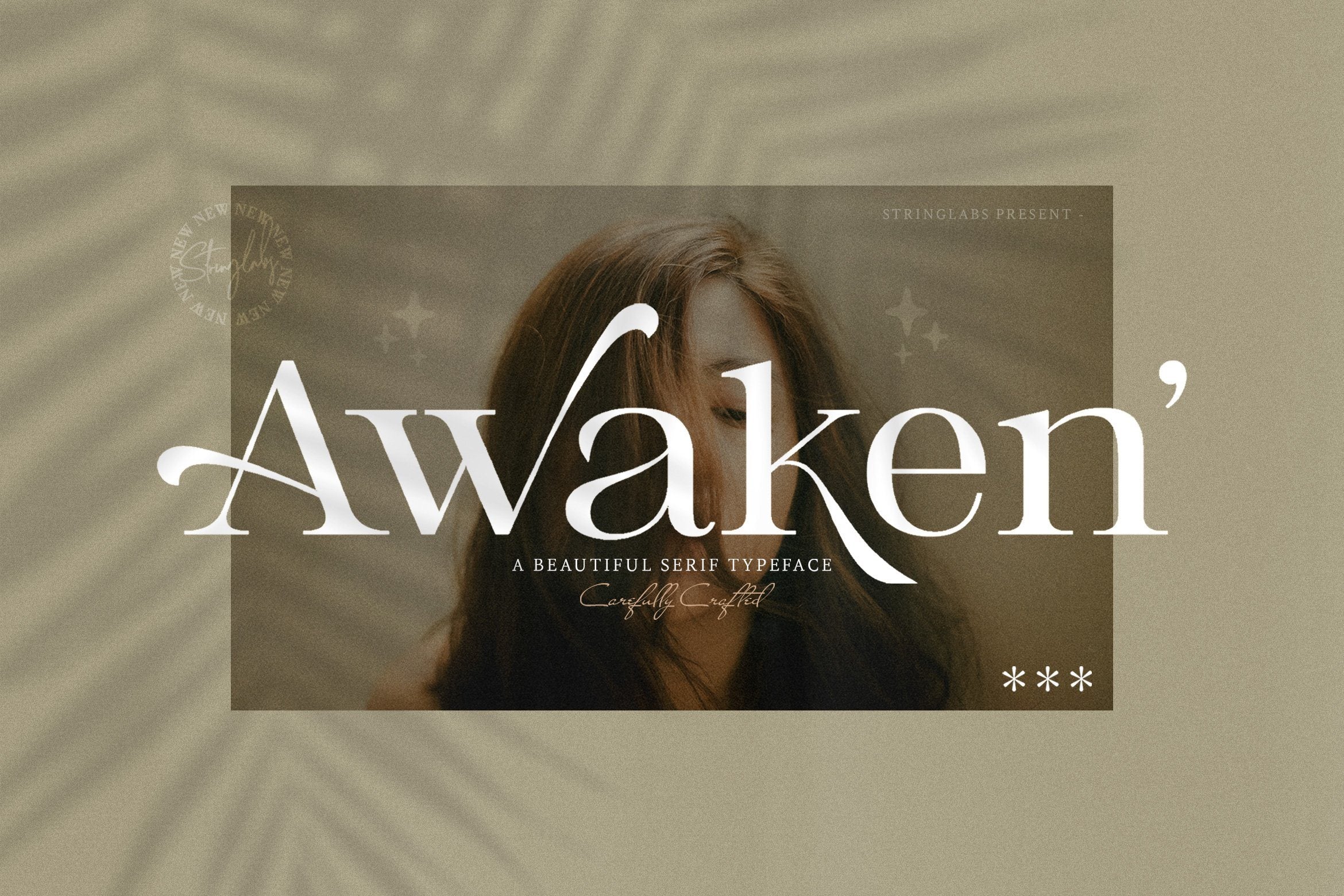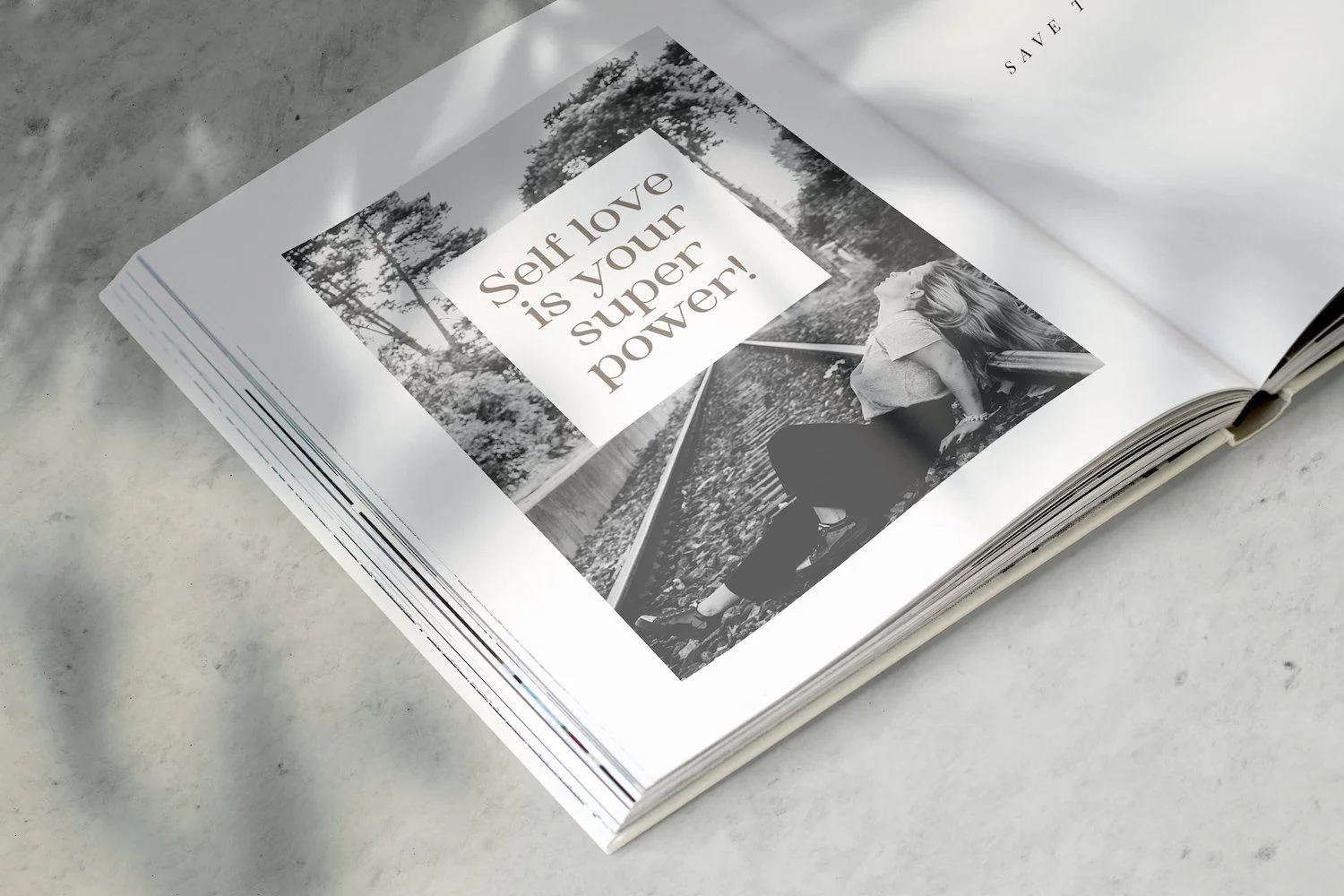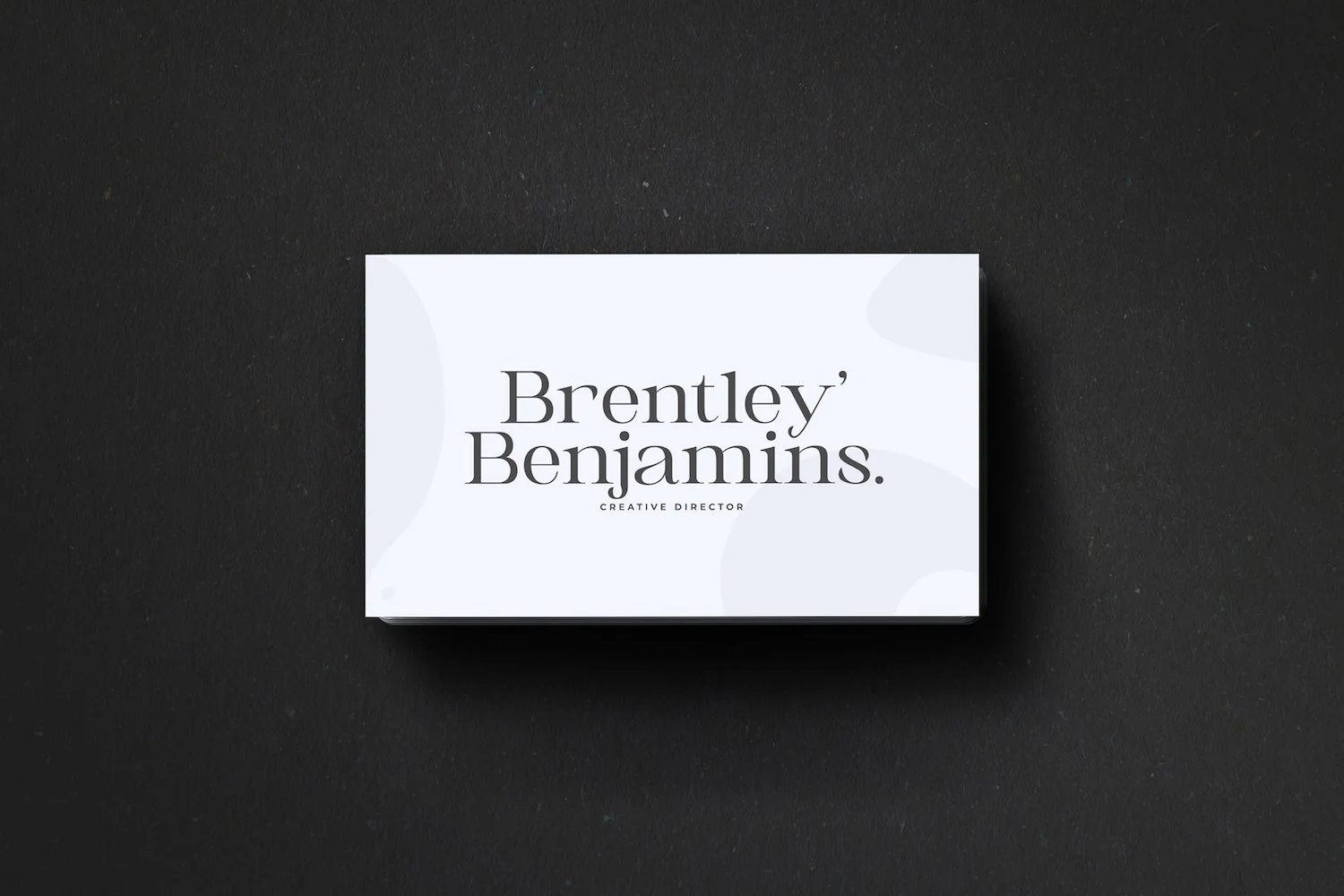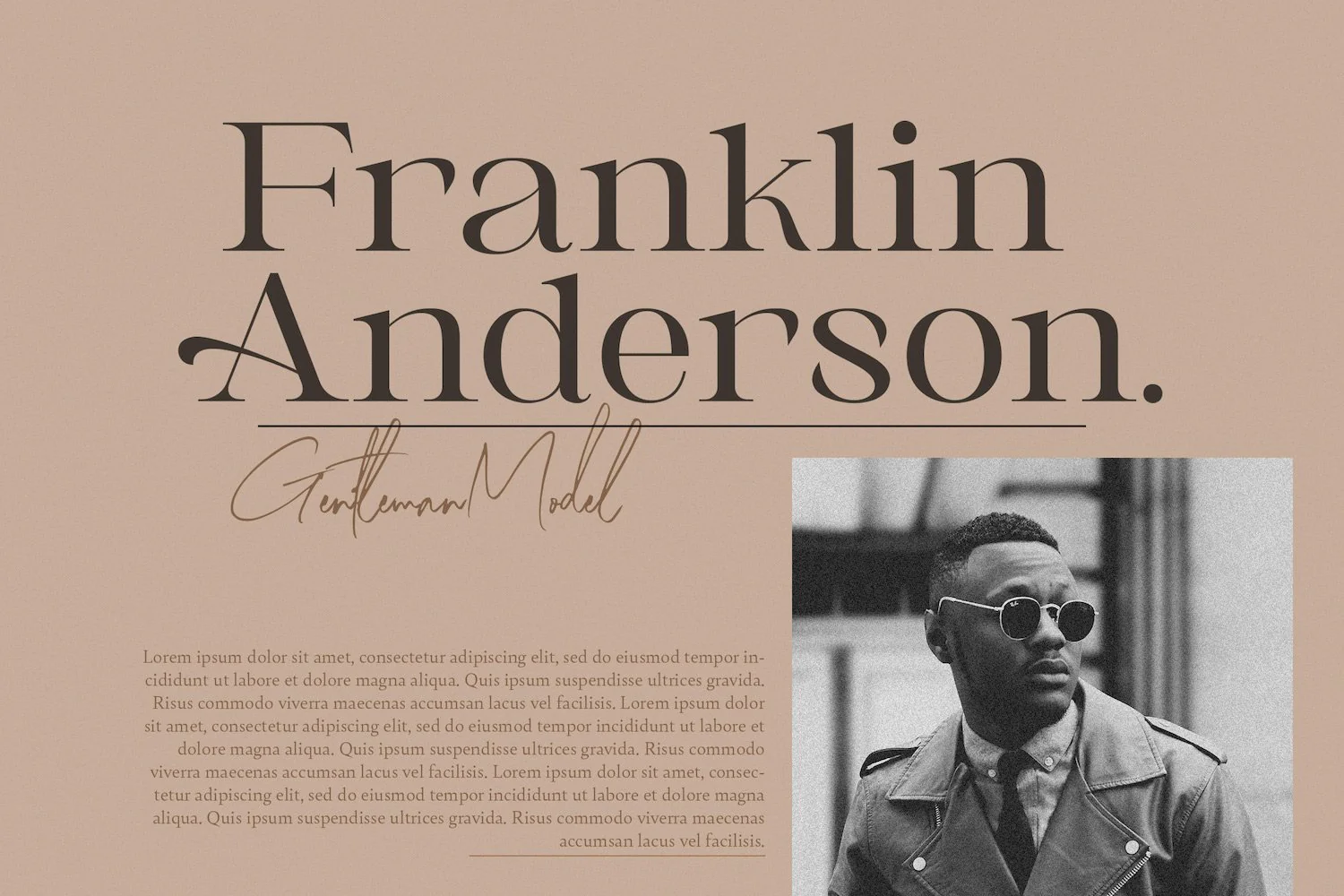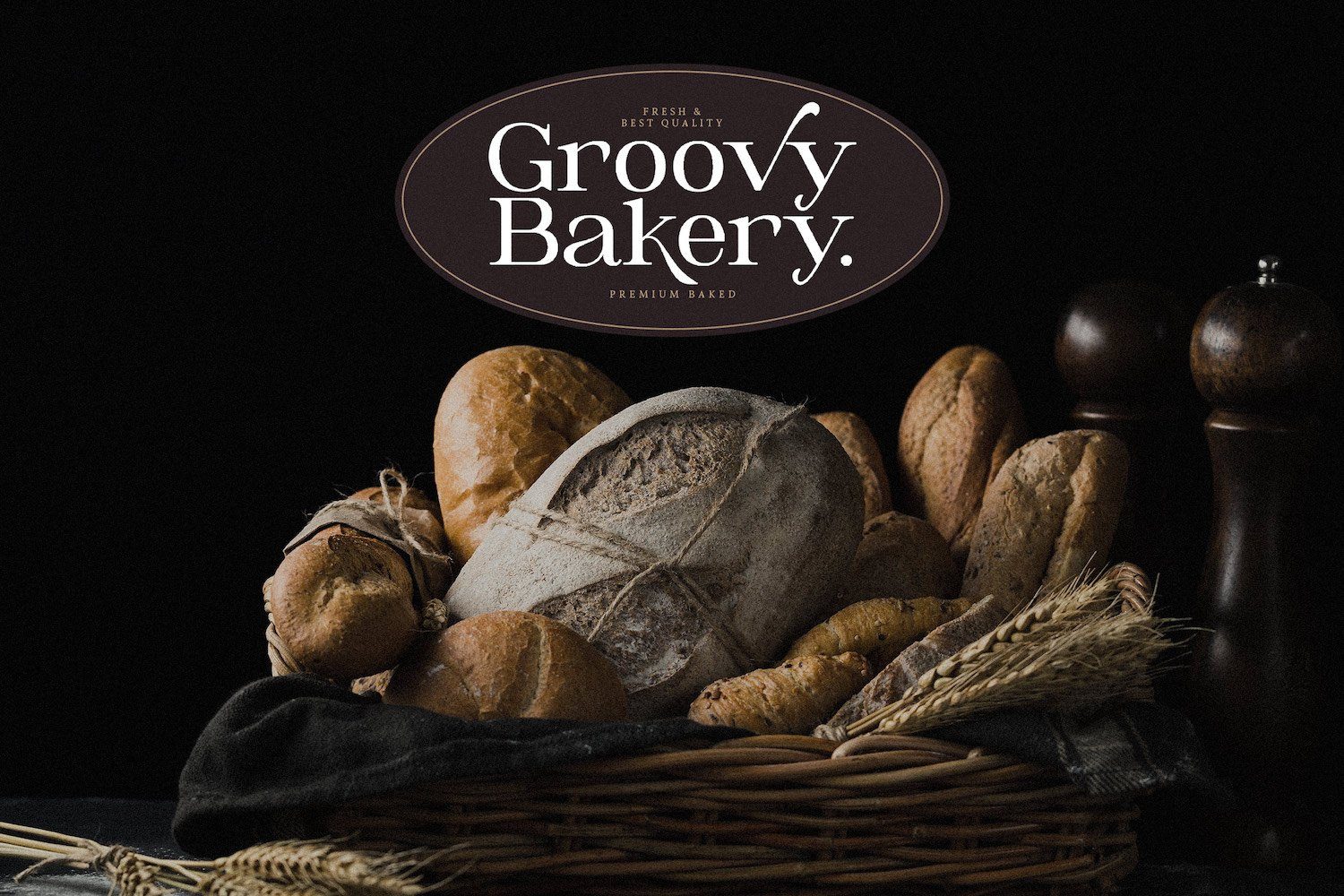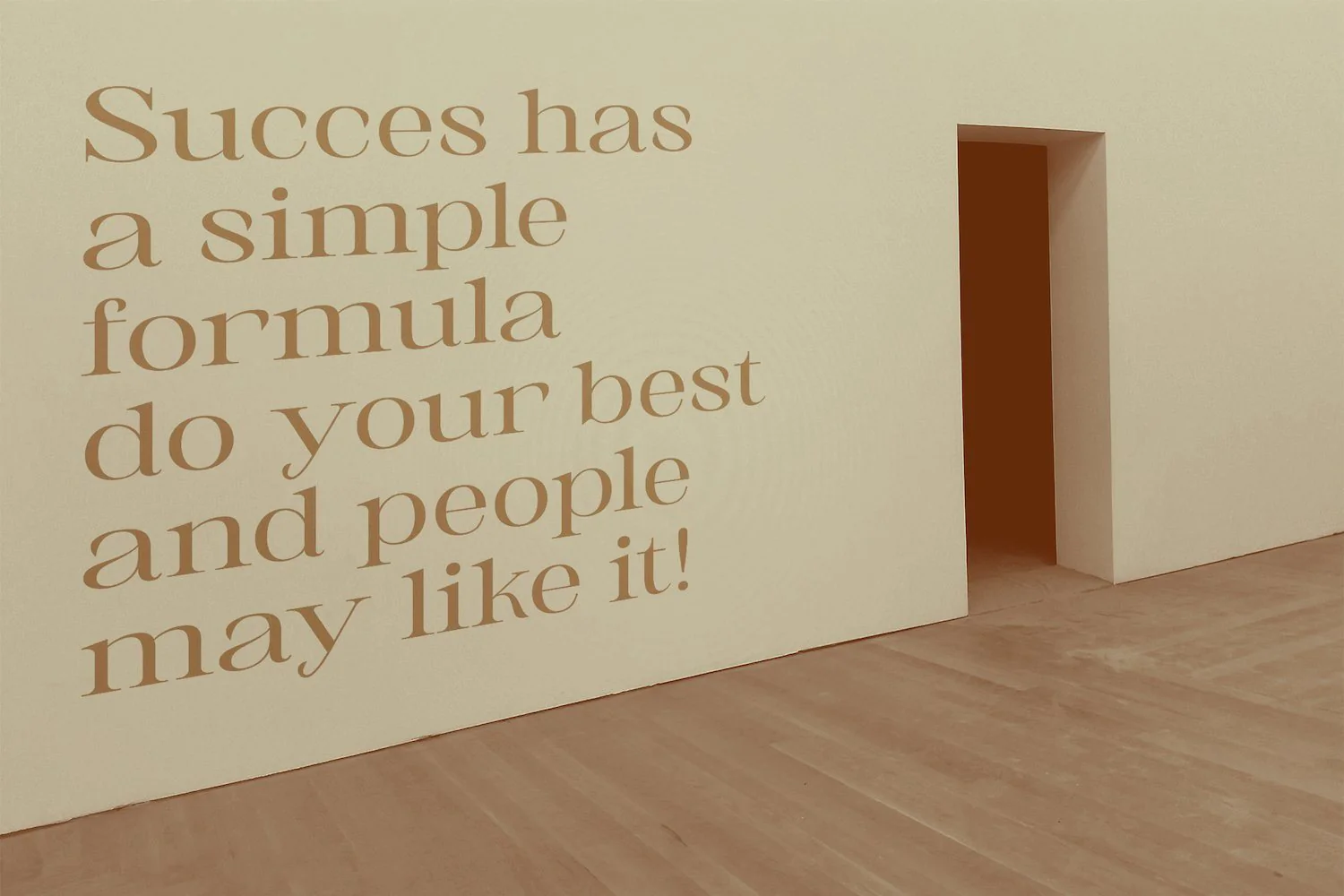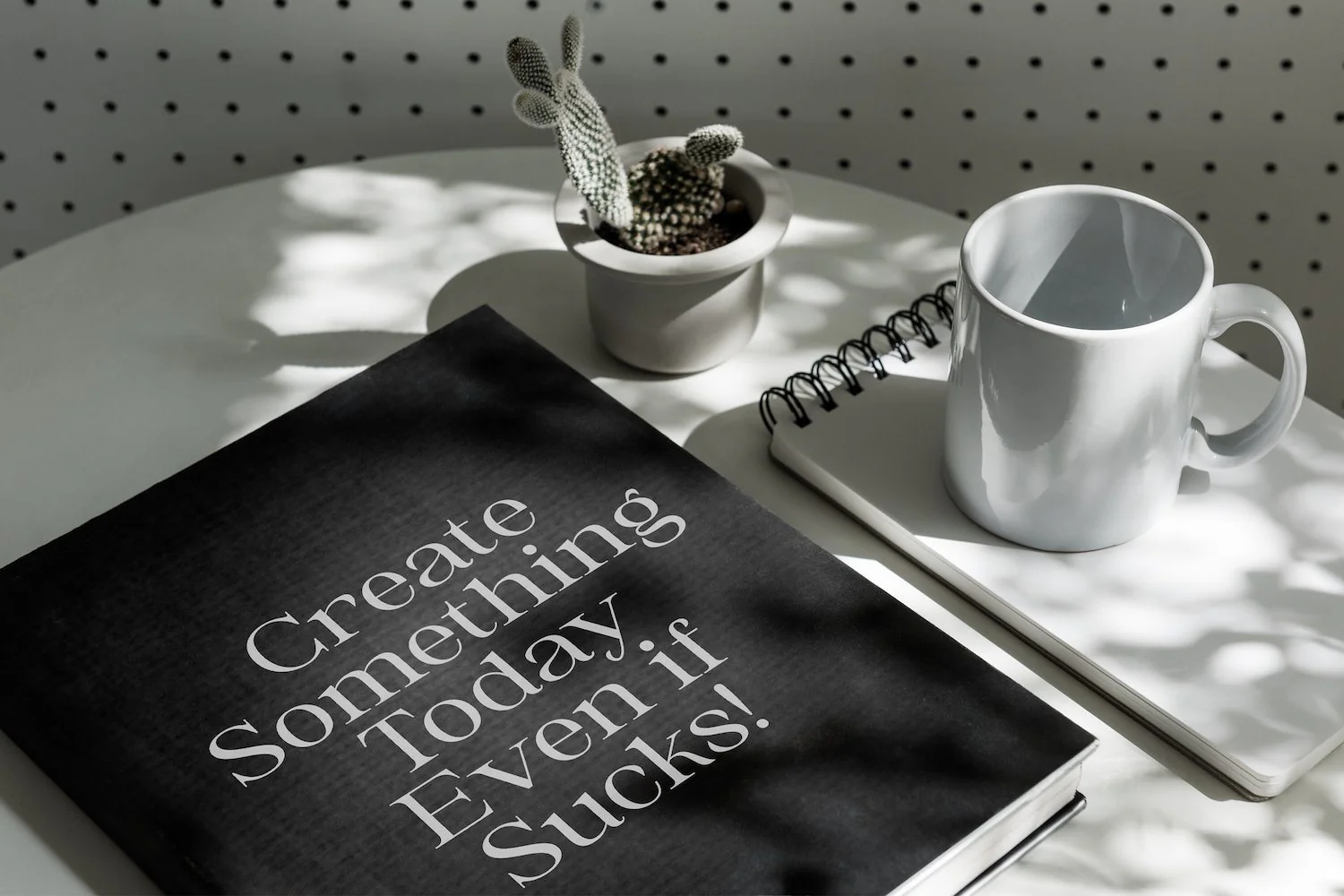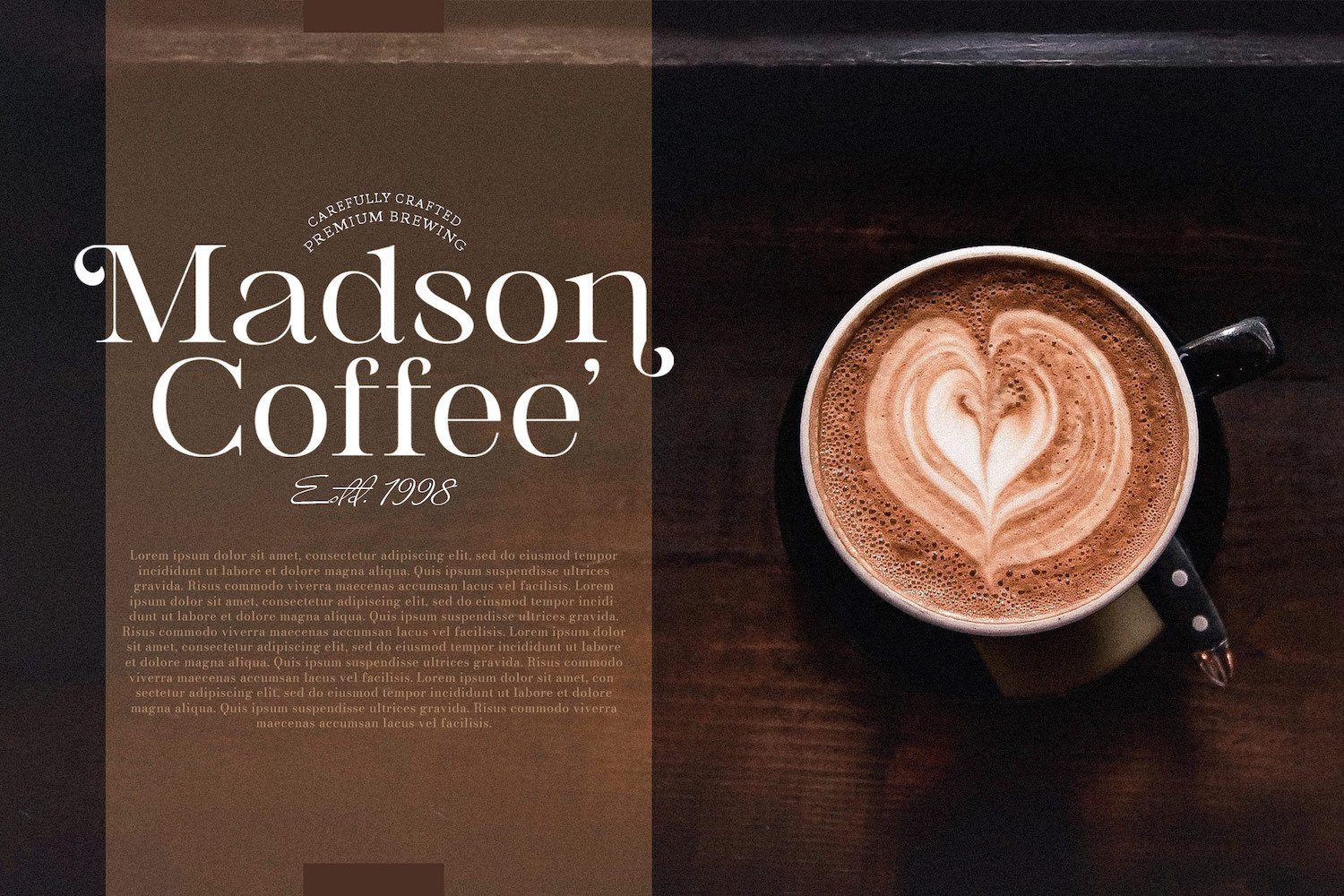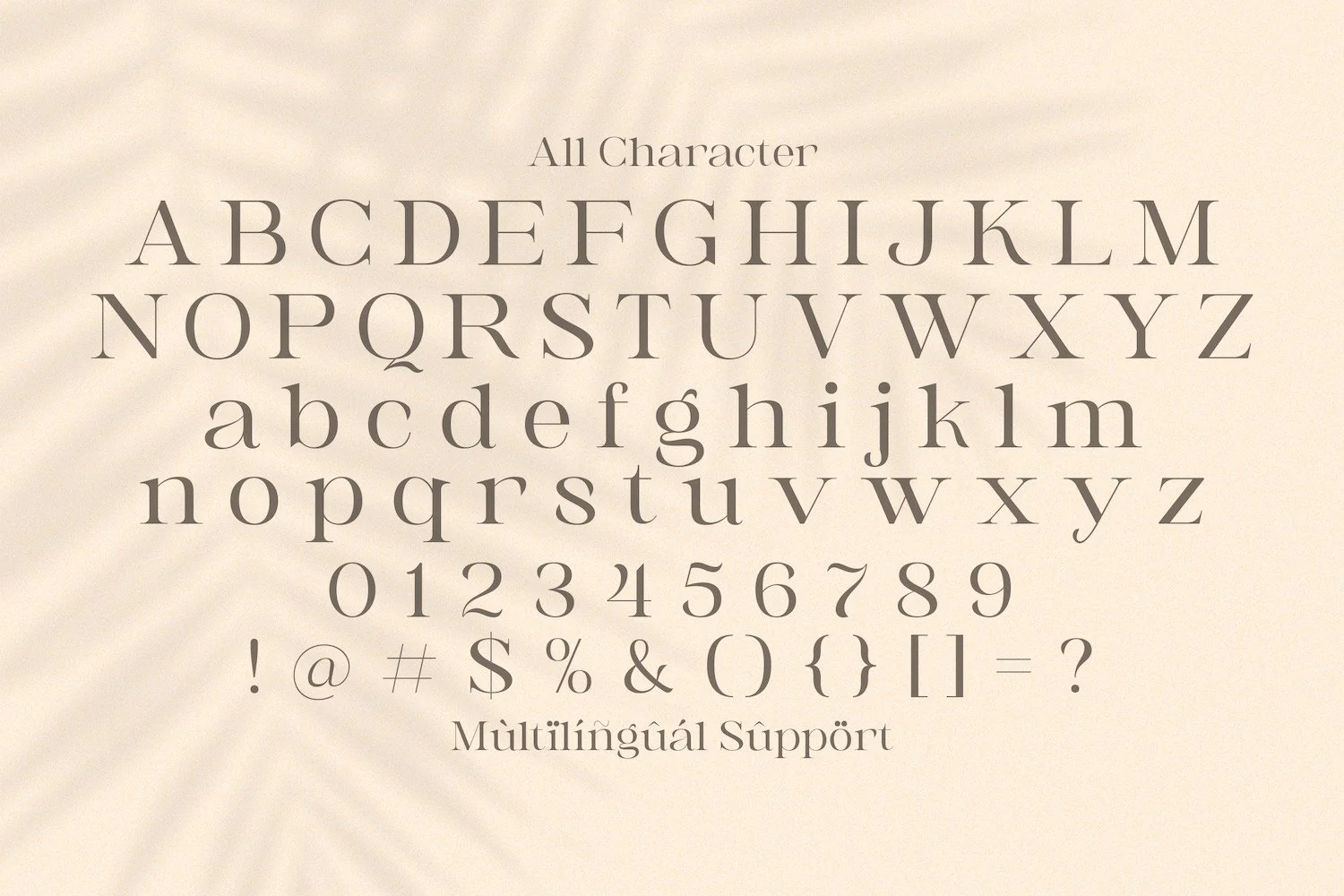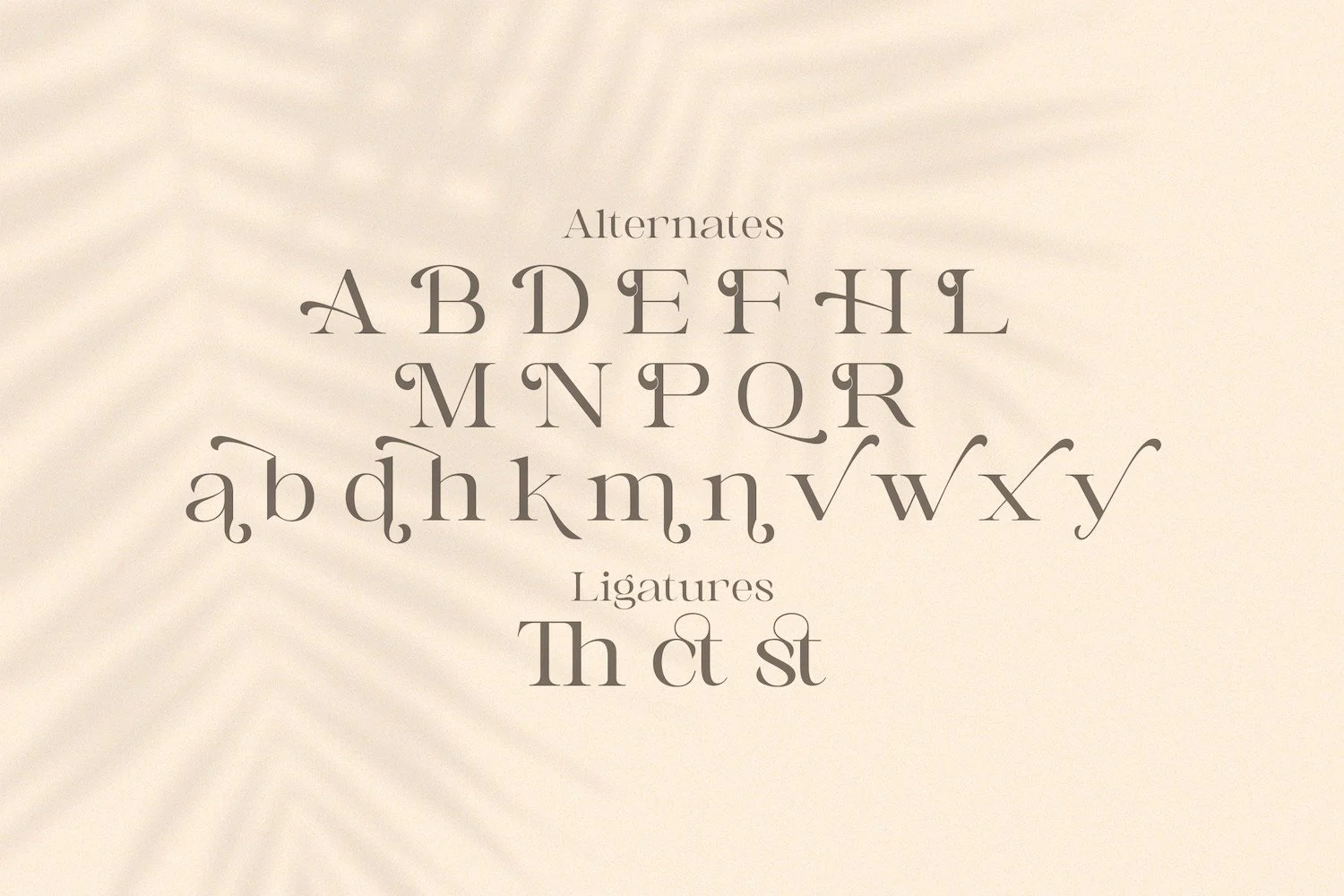
Awaken - Casual Serif Font
Introducing Awaken - Casual Serif Font
Awaken is an authentic and neat serif font. It can easily be matched to an incredibly large set of projects, so add it to your creative ideas and notice how it makes them stand out!
Introducing Awaken - Casual Serif Font
Awaken is an authentic and neat serif font. It can easily be matched to an incredibly large set of projects, so add it to your creative ideas and notice how it makes them stand out!